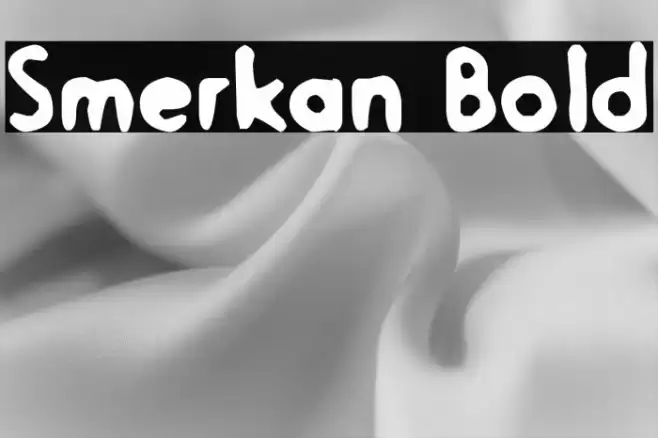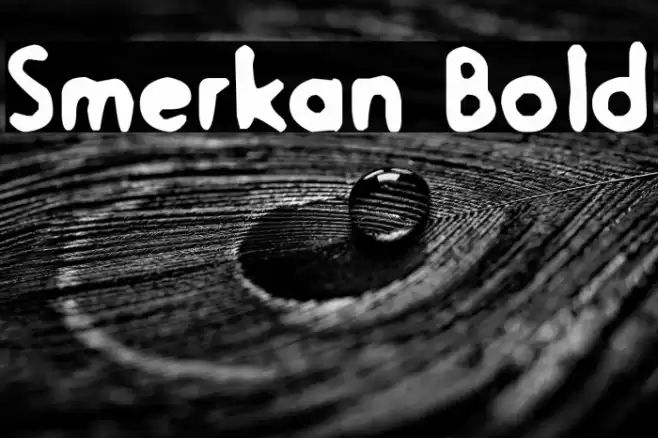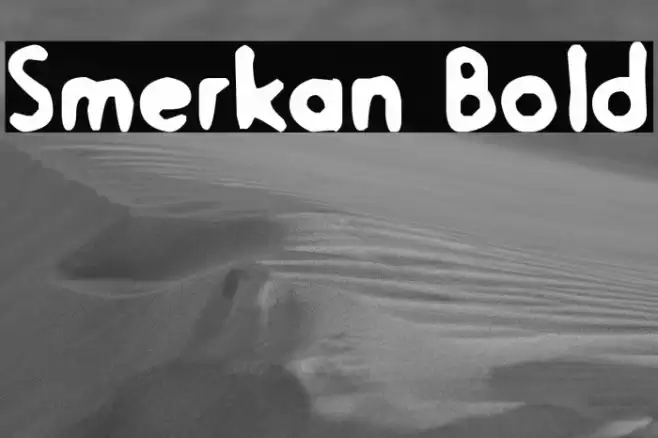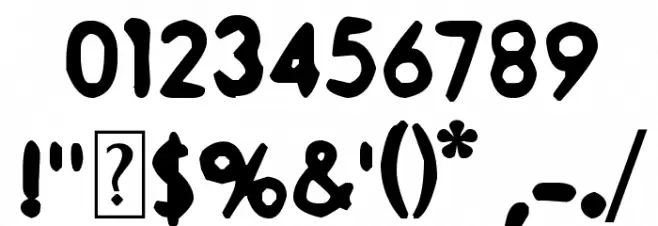
Smerkan Bold Font
Smerkan Bold Description
This font features a bold and playful style with rounded edges and a hand-drawn appearance. The characters are thick and slightly irregular, giving it a whimsical and informal look. The uppercase and lowercase letters maintain a consistent weight, while the numbers and special characters complement the overall design. Its unique style makes it stand out, suitable for creative and fun projects. The font's boldness ensures readability while adding a touch of personality to any text.
A bold, playful font with rounded, hand-drawn characters from Uncategorized fonts.
- Proposed Projects: Ideal for children's books, playful branding, posters, and creative invitations.
- Overall Style: Playful